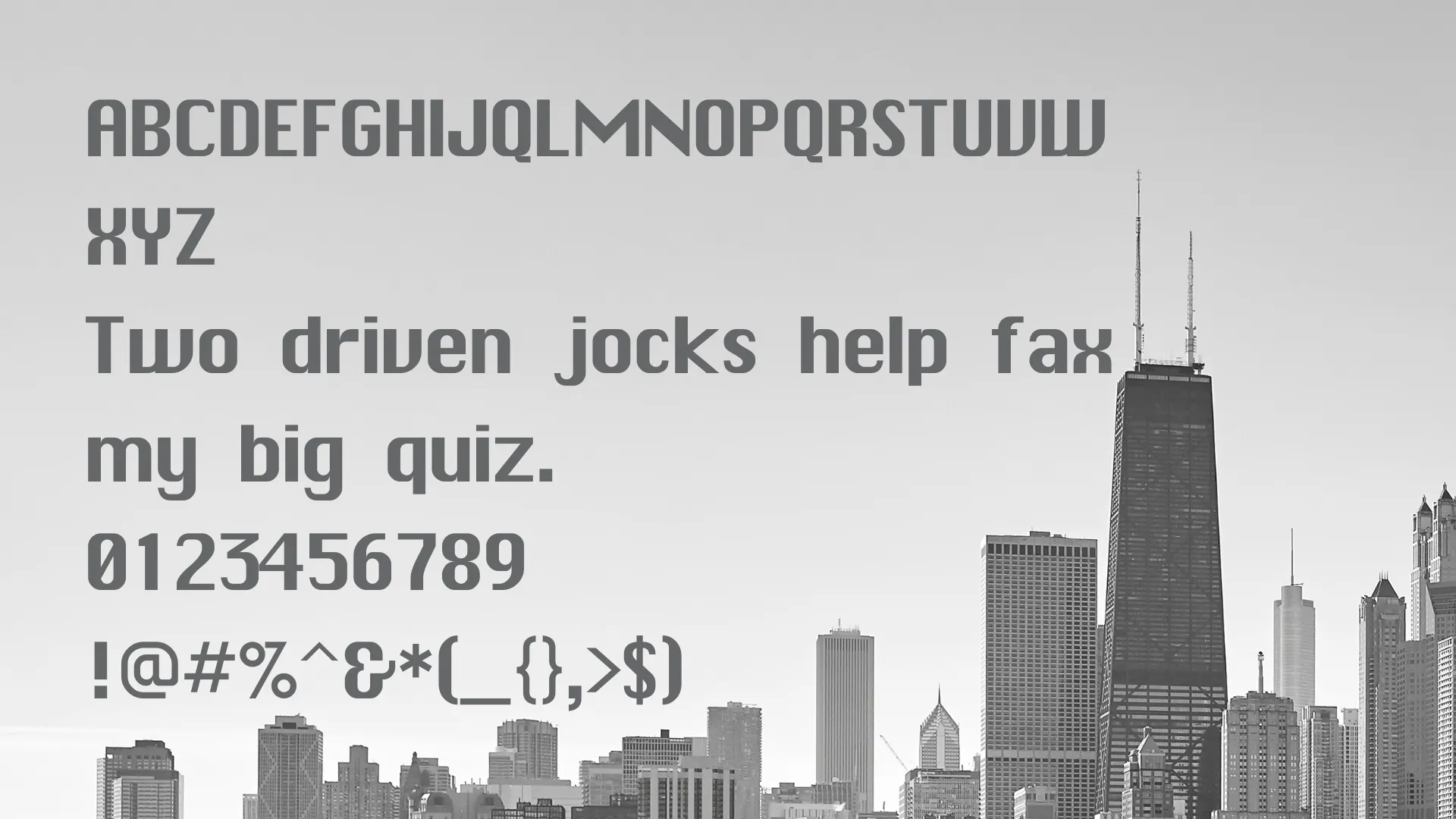
Today we are unveiling a well-known font style that offers excellent readability for electronic devices called Chicago Font. This particular typeface was specifically created for Apple Computers and was even utilized in the initial version of the iPod’s user interface. It played a significant role in defining the identity of Apple brands and was a key feature in the Macintosh operating system user interface between 1984 and 1997. Chicago Font is actually a bitmap font.
This typeface is compatible with a large screen and small screen displays. This typeface has been utilized with the pair of Appleton font and Product Sans Font in the previous versions of iPods. This typeface has also replaced some of the famous typefaces. This typeface has been getting in demand by designers and companies from all over the world. This font type also has some fonts that are related to it.
The most similar typefaces are Lunes Font and Mac Type Font. As a result, they can use it as a substitute for this font style. This font family is also listed in the collection of fonts in the Google library. This typeface has a Readable and Elegant texture visualization, and it makes the designs more attractive. As a result, many designers incorporate it into a wide range of projects and concepts.
Creator of Chicago Font
This famous and amazing typeface has been designed by Susan Kare for the Apple Computer and devices in 1983. She is also famous for creating famous fonts that are popular all over the world. Charles Bigelow & Kris Holmes in 1991 has upgraded this font by adding more features.
This font texture is constructed with a family of its own. Each style of this family is comprised of capital letters, small letters, glyphs, punctuations, numbers, symbols, special characters, and many languages support. These styles are mentioned below.
View of Chicago Font
| Name | Chicago Font |
| Designer | Susan Kare |
| Foundry | Apple Inc |
Who created the Chicago font?
This famous and amazing typeface has been designed by Susan Kare for the Apple Computer and devices in 1983.
What font is closest to Chicago Font?
This font type also has some fonts that are related to it. The most similar typefaces are Lunes Font and Mac Type Font. As a result, they can use it as a substitute for this font style.
Where You Can Use Chicago Font?
This typeface has been used in the operating systems of Apple. So, this font style is best to utilize in the device’s interface.